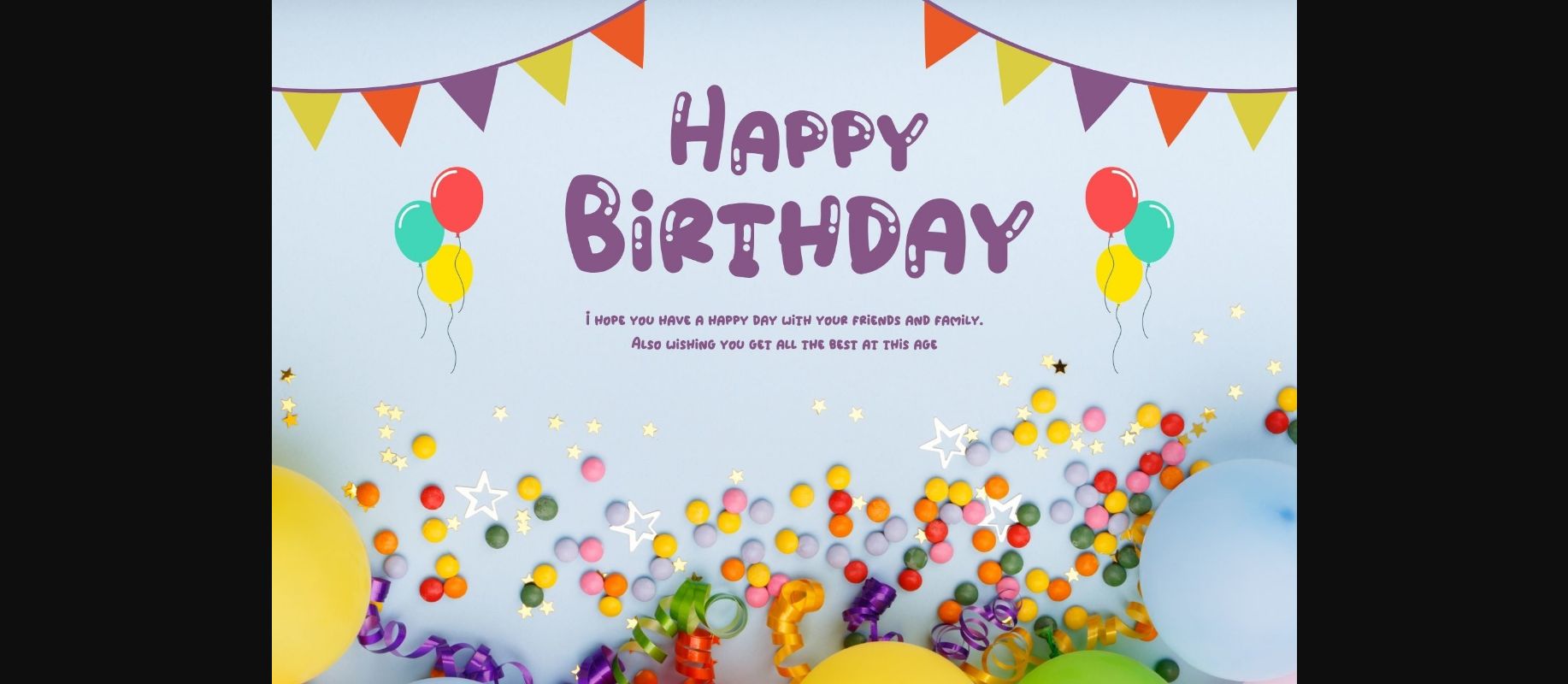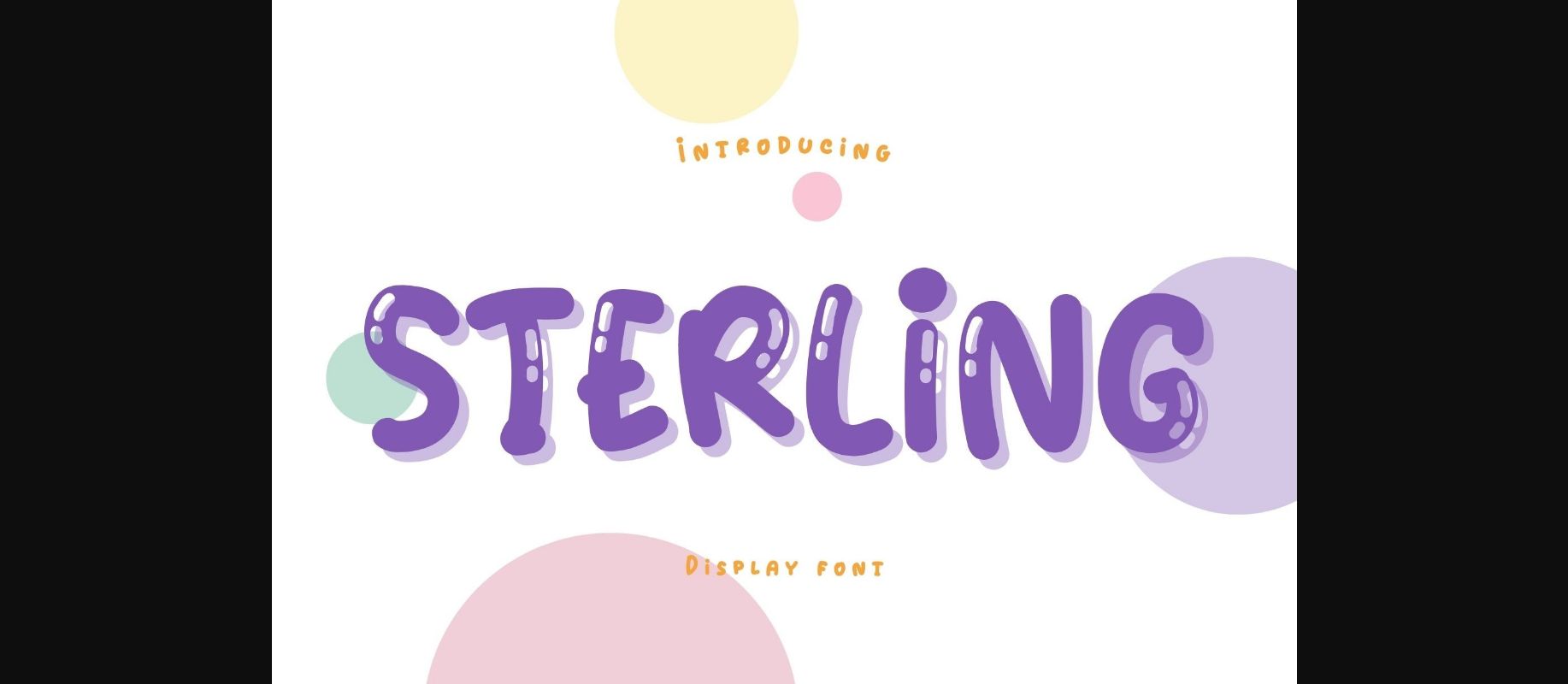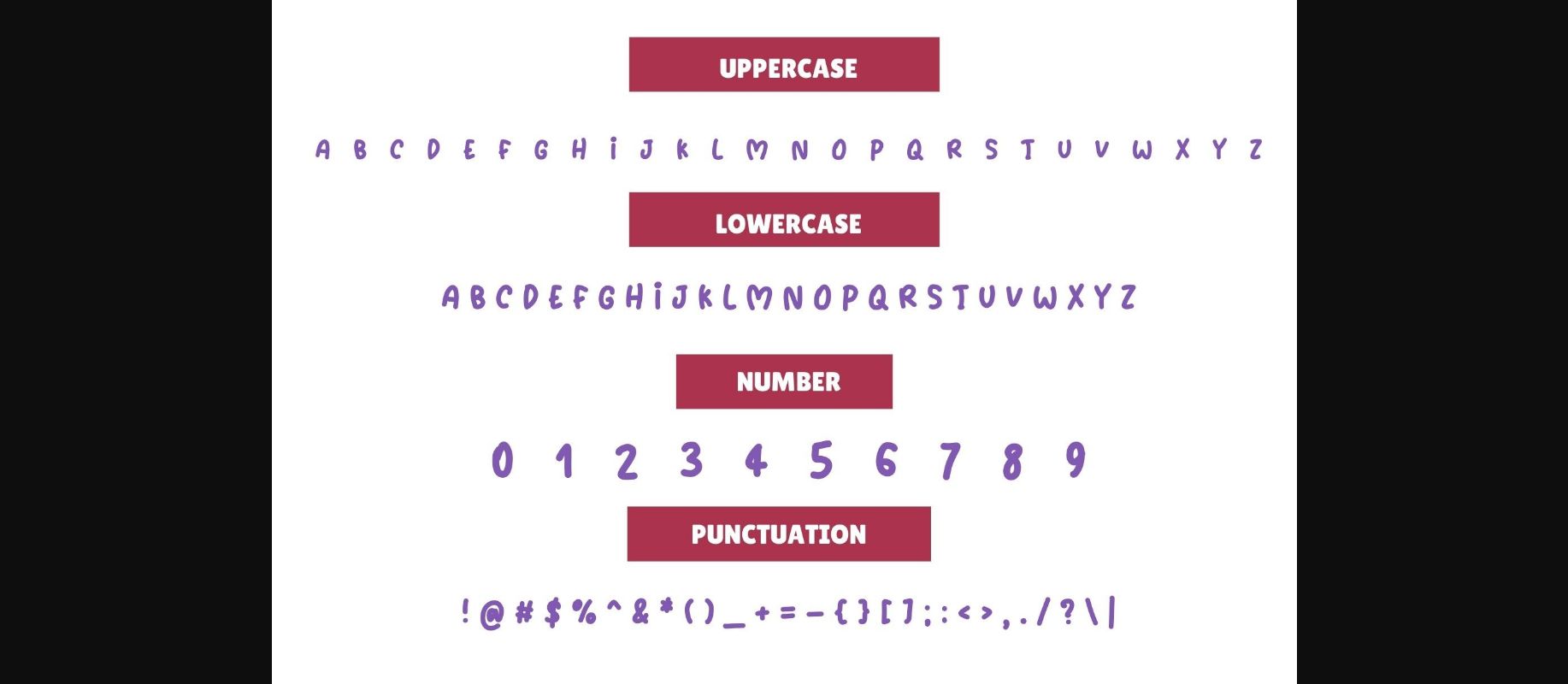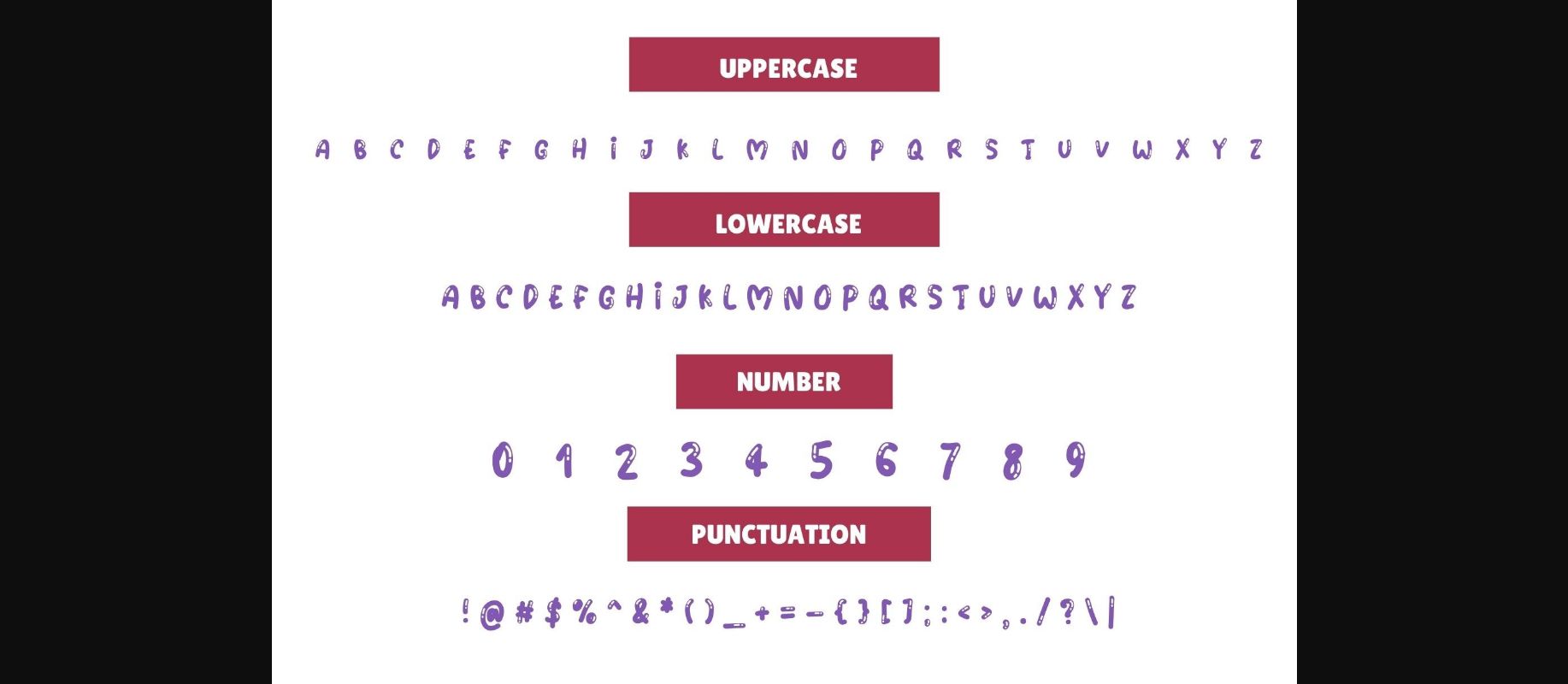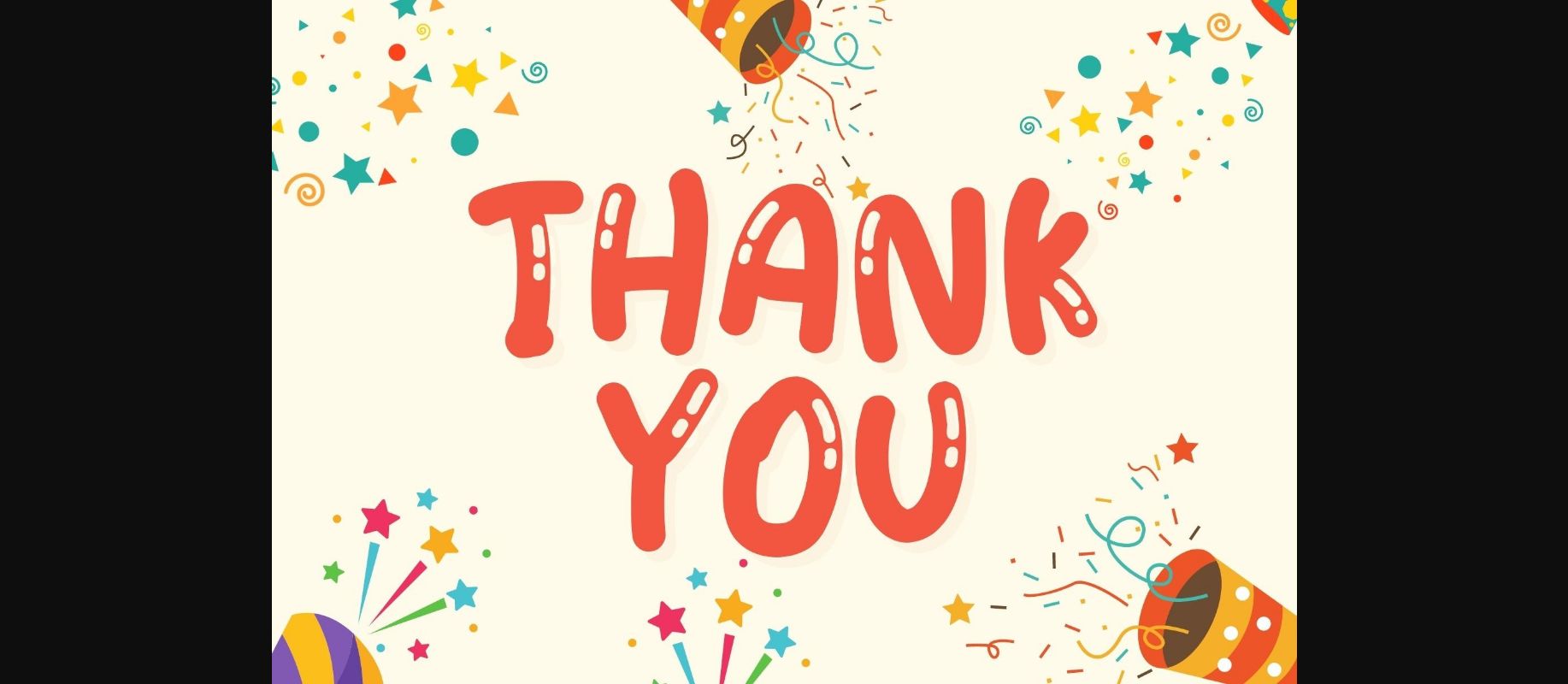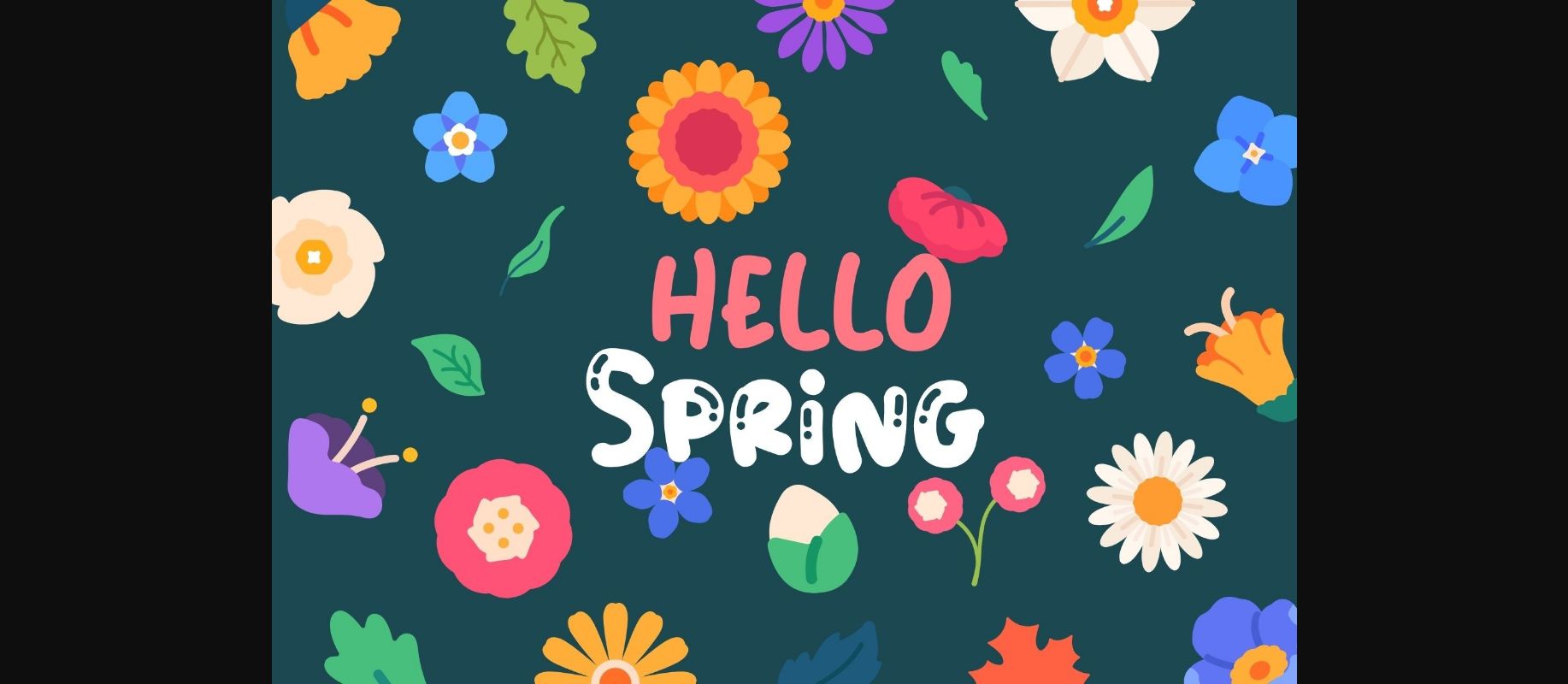
Sterling Font
About Sterling Font
Sterling is a cute display font. It embodies playfulness and authenticity and is the perfect choice for all your favorite projects, or even for blog posts, logos, branding, ads, invitations, greeting cards, planners, photo albums, decorations, and much more. Add it to any of your designs, and enjoy the results!